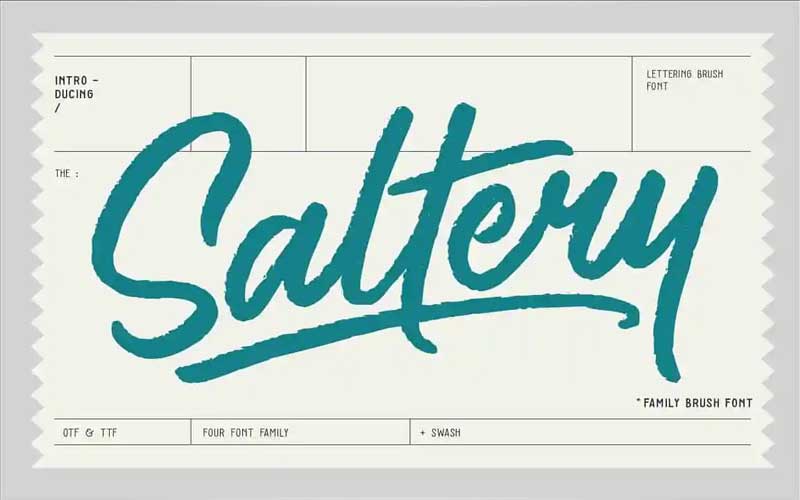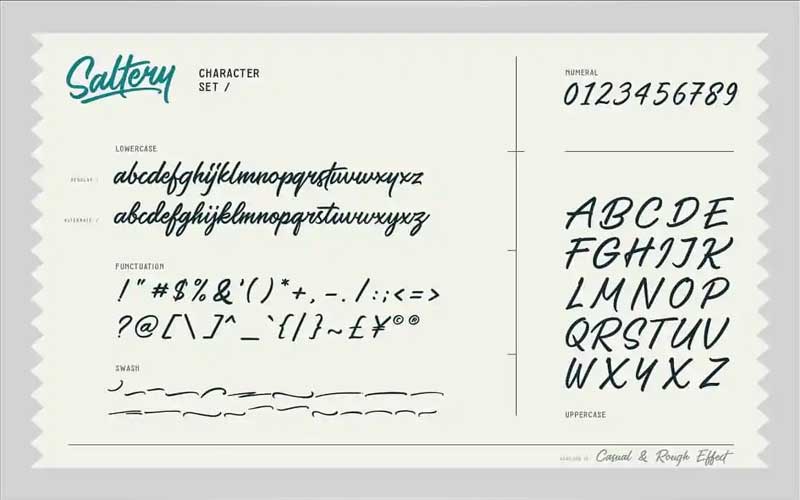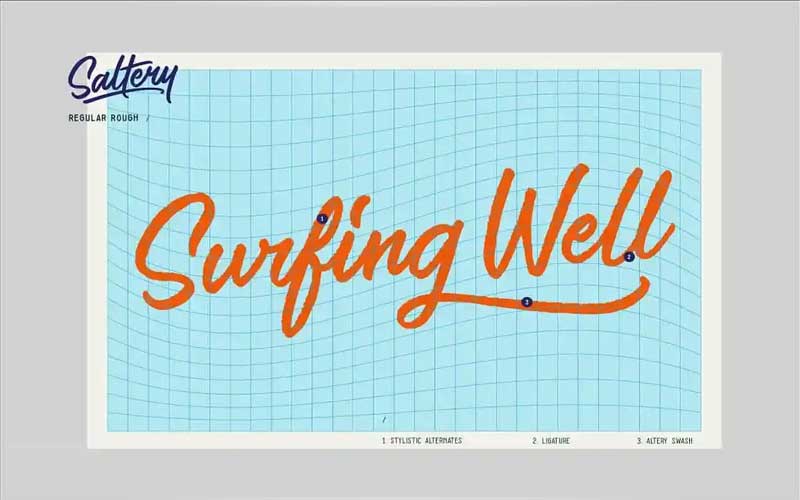
Introducing Saltery! It is designed by Pana Type & Studio, this is a premium font, are sold on creativemarket, but it was great, it is free today for download. Saltery is modern, fresh, casual, and stylish brush font coming up with clean and rough effect fonts plus extra swash, the Saltery Family Font is made with precision to look natural like a brush stroke. Opentype Features like ligature and stylistic alternates complement each font to look dynamic, and stylish make your design more attractive.